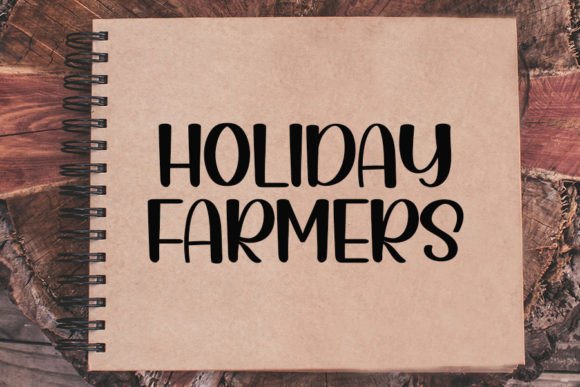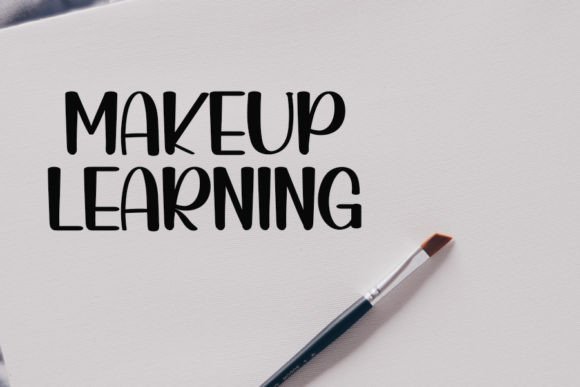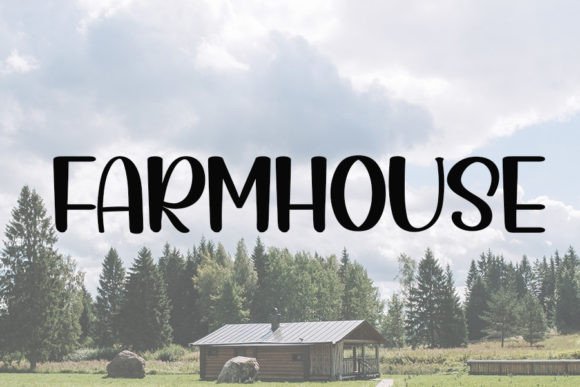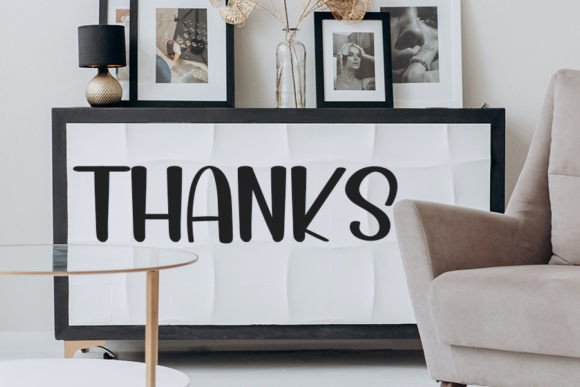
Introducing Action Font: Elevate Your Designs with Timeless Elegance
In the world of typography, fonts play a pivotal role in conveying messages, evoking emotions, and setting the tone for a brand’s identity. For designers and crafters seeking a typeface that exudes sophistication, versatility, and a touch of classic charm, look no further than Action Font. This well-balanced handwritten display font is not just a typographic choice; it’s an experience that brings a contemporary atmosphere and impeccable form to your projects, inspired by the elegance of timeless classic calligraphy.
The Essence of Action Font
Action Font strikes the perfect balance between modern flair and traditional calligraphic techniques. Its design is rooted in the principles of classic calligraphy, yet it has been carefully crafted to meet the demands of contemporary design. This font is not just about aesthetics; it’s about performance. Whether you’re working on a branding project, a website, a print advertisement, or any other creative endeavor, Action Font is engineered to make your text stand out.
Key Features of Action Font
- Contemporary Atmosphere: Action Font embodies a modern vibe that aligns perfectly with current design trends, making it an excellent choice for projects that require a fresh and updated look.
- Impeccable Form: With its roots in classic calligraphy, this font boasts impeccable form and structure, ensuring that your text is not only visually appealing but also highly legible.
- Versatility: One of the standout qualities of Action Font is its versatility. It can be used across a wide range of contexts, from elegant headings and titles to more casual and playful applications.
- Handwritten Display: As a handwritten display font, Action Font brings a personal and unique touch to your designs, setting them apart from more generic typefaces.
Applications of Action Font
The adaptability of Action Font makes it suitable for various design projects. Here are some of the areas where this font truly shines:
- Branding and Logos: Create a lasting impression with a logo or brand name that exudes elegance and sophistication.
- Web Design: Enhance your website’s visual appeal with headings and titles that capture attention and convey your message effectively.
- Print Media: From business cards to billboards, Action Font ensures your print materials stand out in a crowded marketplace.
- Packaging: Add a touch of class and personality to your product packaging, making it more engaging for consumers.
Why Choose Action Font?
In a sea of typefaces, Action Font stands out for several reasons:
- Timeless Appeal: Unlike trendy fonts that may quickly become outdated, Action Font’s classic inspiration ensures it remains relevant for years to come.
- Emotional Connection: The font’s elegant and personal nature helps create an emotional connection with your audience, enhancing the impact of your message.
- Design Efficiency: With Action Font, you can achieve high-end design looks without the need for extensive customization, saving you time and effort.
Action Font is more than just a typeface; it’s a design solution that brings together the best of classic calligraphy and modern typography. Its well-balanced, handwritten display style, coupled with its impeccable form and contemporary atmosphere, makes it an invaluable asset for designers and crafters looking to elevate their projects. Whether you’re aiming for sophistication, elegance, or a touch of personal flair, Action Font is poised to become your go-to choice for creating visually stunning and effective designs.